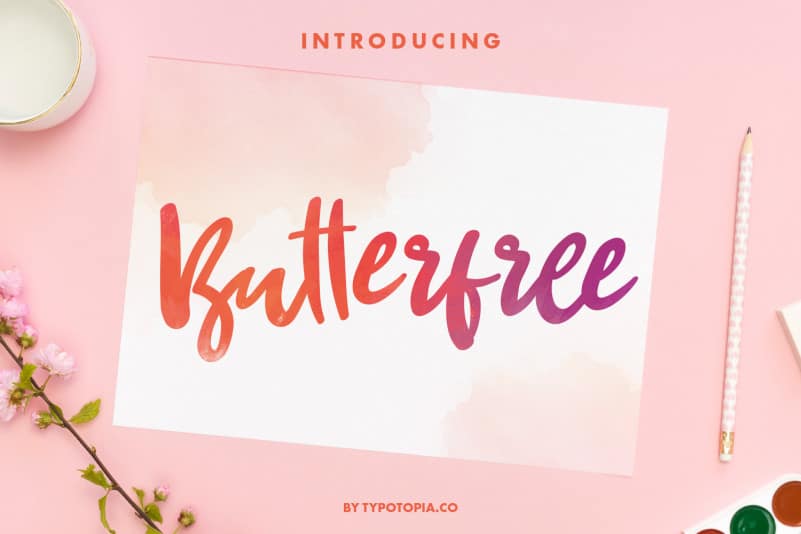
Butterfree Girly Script Font
Butterfree Script Font is a Fancy Script Font. This type of font perfectly made to be applied especially for logos, Poster, stationery, magazines, menus, books, invitations, greeting cards, packaging, labels, apparel, marketing, business cards, etc.